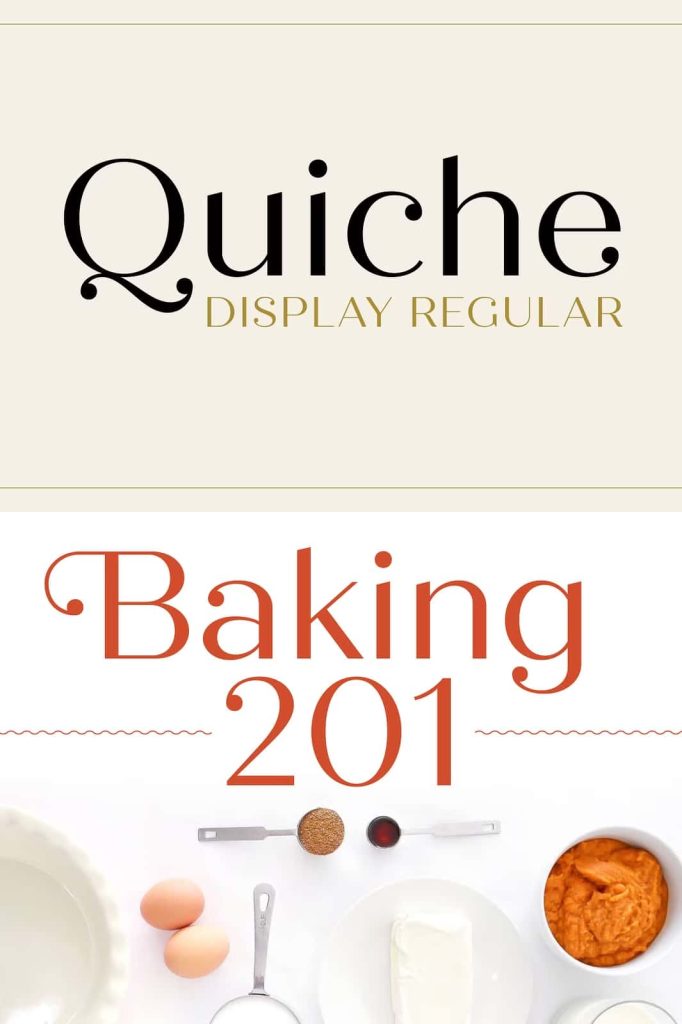
Quiche Display Regular is a high-contrast, sans serif display typeface featuring ball terminals and angled stems. The high-contrast style exudes drama and sophistication, while the ball terminals balance it by softening the overall look to make it feel a little more approachable. This font will be eye-catching in many applications: print, web, branding, advertising, magazines, products, packaging, labels, etc.